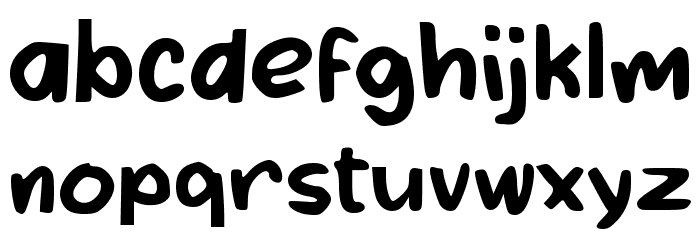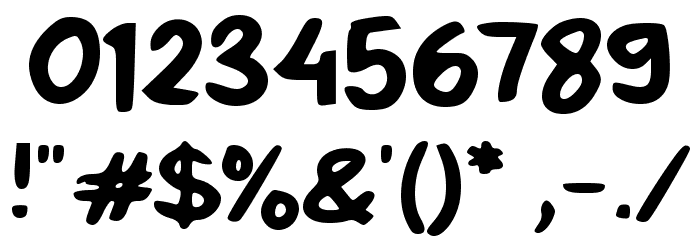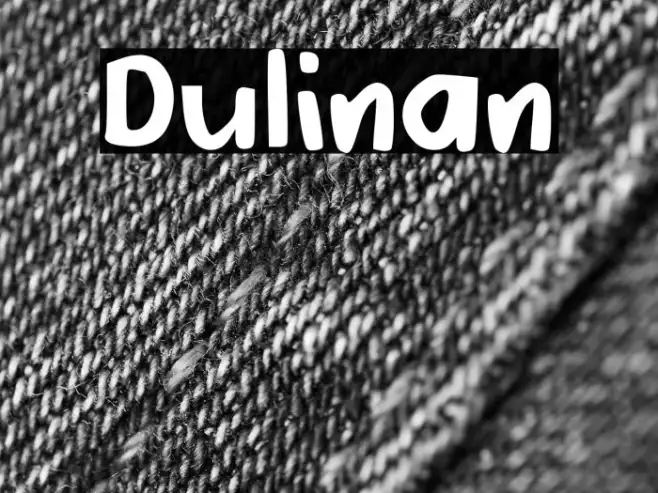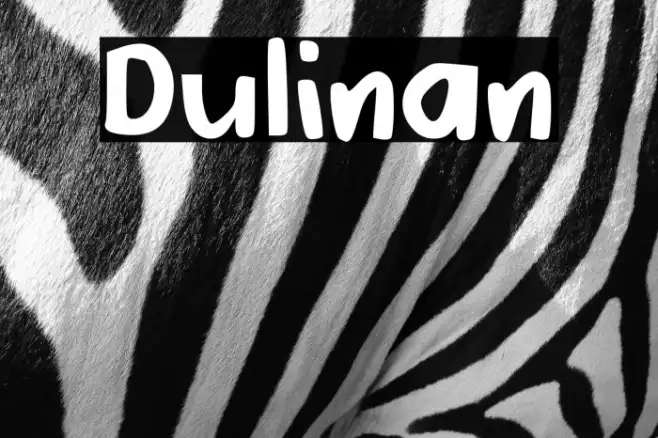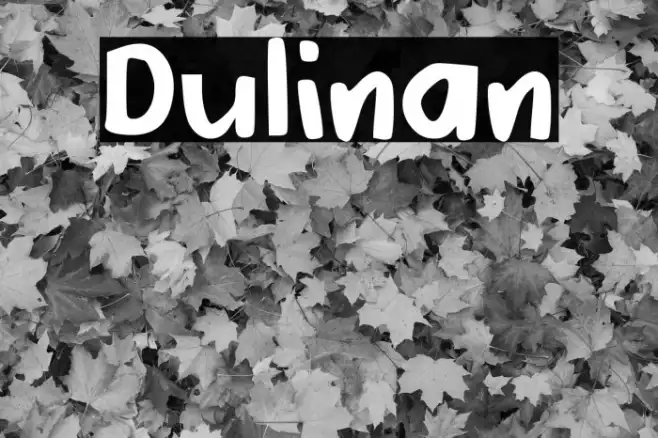
Dulinan Font
This playful and bold font features a handwritten style with thick, rounded strokes that give it a friendly and approachable appearance. The characters are slightly irregular, adding to the casual and informal feel. The uppercase and lowercase letters maintain a consistent weight, while the numbers and special characters are designed to match the overall style. The font's whimsical nature makes it ideal for projects that require a fun and engaging look, such as children's books, party invitations, or playful branding materials. Its boldness ensures readability, even at smaller sizes, while the rounded edges soften the overall impact, making it versatile for various design needs.
A playful, bold handwritten font with rounded strokes and a friendly appearance.
- Font: Dulinan
- Proposed Projects: Children's books, party invitations, playful branding, casual posters.
- Category: Handwritten
- Overall Style: Playful
- Use Case: Headlines, Logos, Casual text